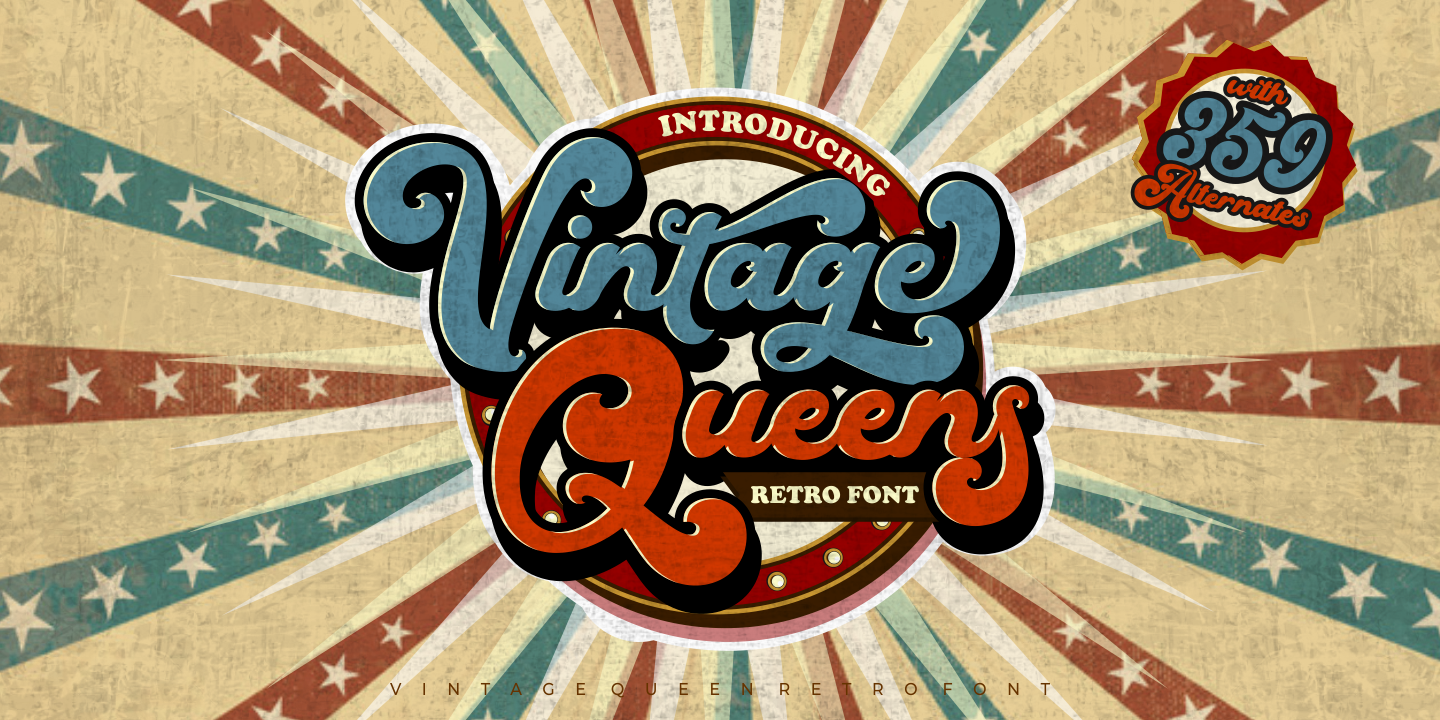
Vintage Queens Font is perfect for branding projects, wedding invitations, vintage-style logos, retro packaging designs, book covers, greeting cards, social media graphics, restaurant menus, boutique signage, and classic poster designs. This elegant typeface brings sophisticated charm to any creative project requiring a timeless aesthetic.
What makes Vintage Queens Font so exciting is its perfect blend of classic elegance and modern versatility. The carefully crafted letterforms feature subtle decorative elements that evoke the glamour of bygone eras while maintaining excellent readability for contemporary applications. Each character has been meticulously designed to create seamless flow and visual harmony, making it an ideal choice for designers seeking to add refined sophistication to their work.
Vintage Queens Font comes in multiple font families including Regular, Bold, Italic, Light, and Condensed variations. These different weights and styles provide designers with comprehensive flexibility to create cohesive visual hierarchies and dynamic typographic compositions across various design projects.
This remarkable typeface captures the essence of vintage typography while offering modern functionality that today's designers demand. Vintage Queens Font Free Download represents an exceptional opportunity for creative professionals to access premium-quality typography that enhances brand identity and visual storytelling. The font's distinctive character makes it particularly suitable for luxury brands, artisanal businesses, and creative agencies looking to establish memorable visual presence.
Whether you're designing elegant wedding stationery, crafting sophisticated brand identities, or developing eye-catching marketing materials, Vintage Queens Font delivers the perfect balance of nostalgic charm and contemporary appeal. The font's versatile nature allows it to work beautifully in both large display applications and smaller text settings, ensuring consistent visual impact across all design mediums.
The intricate details and refined aesthetics of this typeface make it an invaluable addition to any designer's font library, offering endless possibilities for creative expression and professional design solutions.